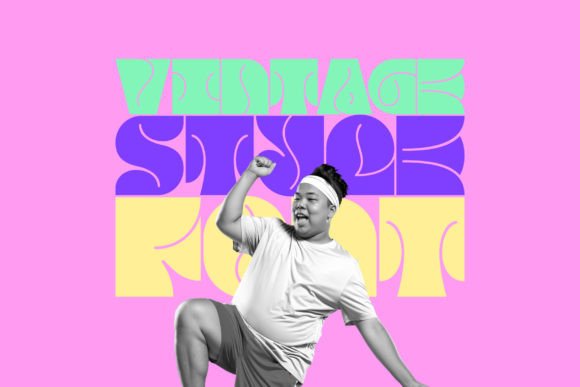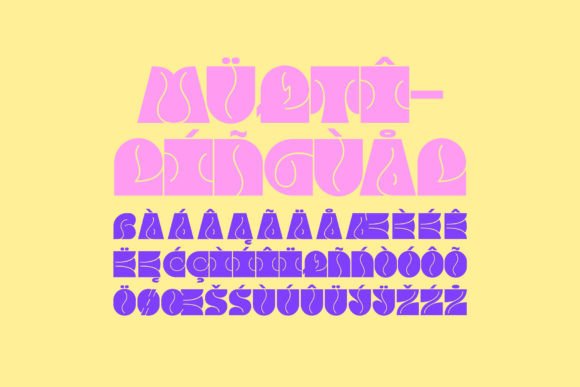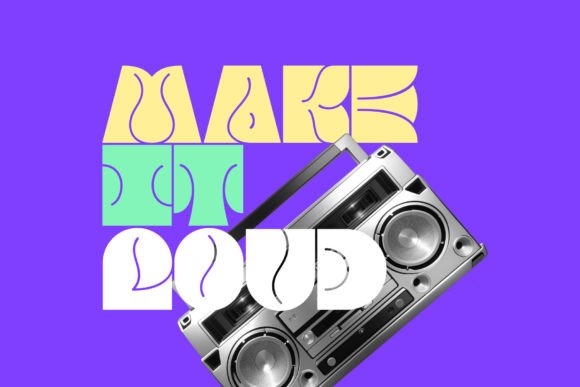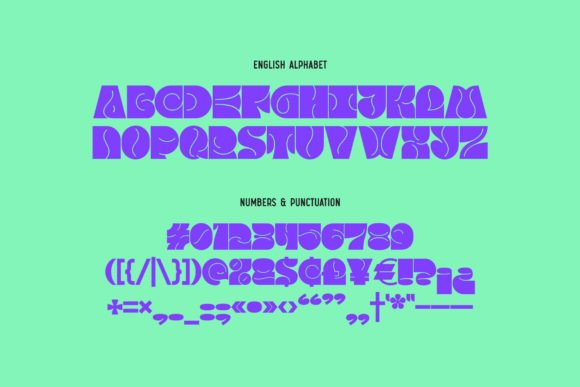
Introduction to Old Fat Boy Font Font
Fonts play a crucial role in design, and the Old Fat Boy Font font is a typeface that brings both character and versatility to any project. Whether you’re working on a branding project, a website, or a print design, the Old Fat Boy Font font offers a unique style that can elevate your work.
Introducing a creative all-caps font named Old Fat Boy.
Itβs a vintage shape smooth display typeface with an authentic 90βs style look that will help you create unique and original designs .
Key Features of Old Fat Boy Font Font
Why Choose Old Fat Boy Font Font?
The Old Fat Boy Font font is more than just a typeface β it’s a design tool that helps you communicate your message with style and clarity. Its unique character set and versatile design make it suitable for a wide range of applications, from elegant invitations to bold headlines.
With its carefully crafted letterforms and balanced proportions, the Old Fat Boy Font font ensures readability and visual appeal across all mediums.
What makes Old Fat Boy Font font special?
The Old Fat Boy Font font stands out with its unique design, exceptional readability, and versatility across various design applications.